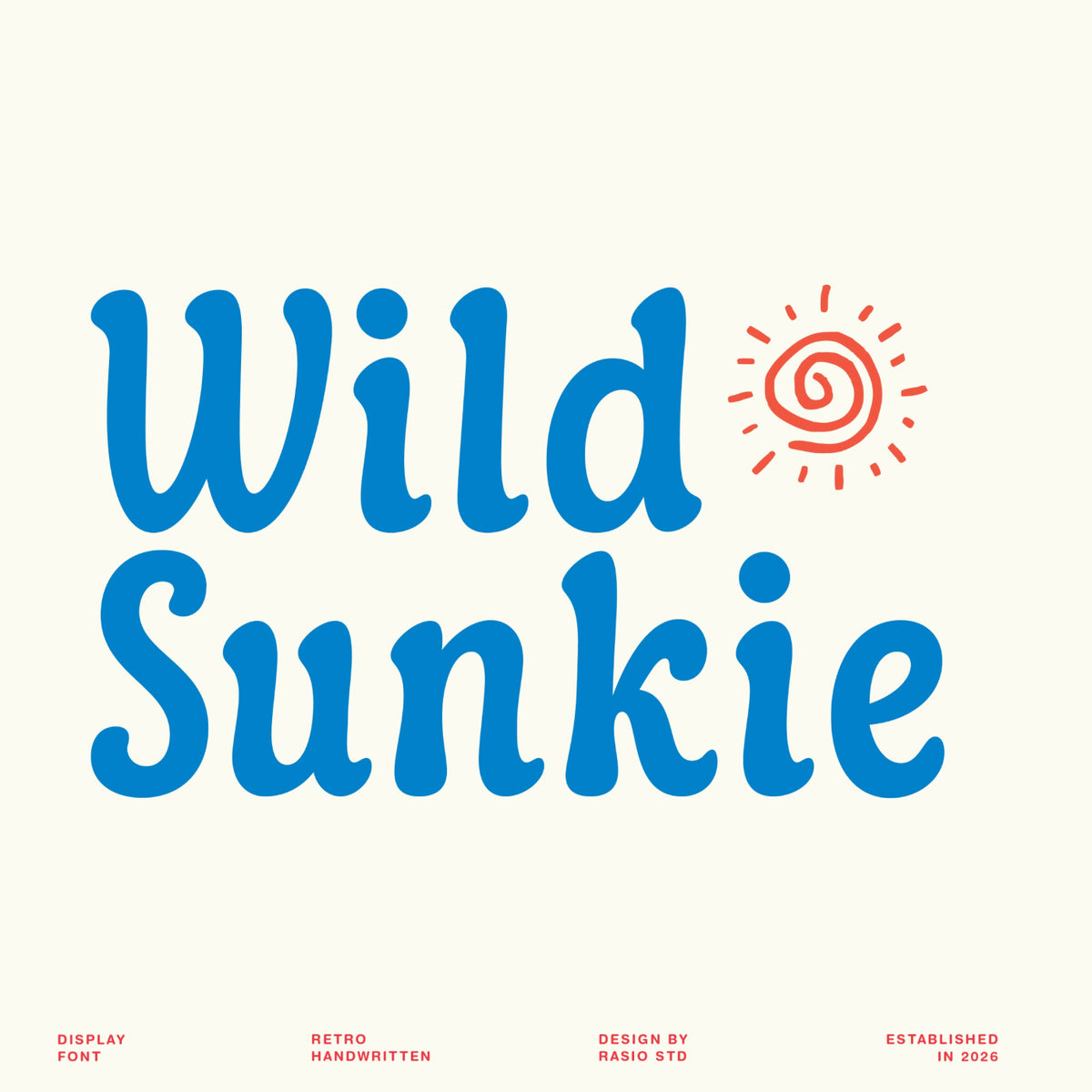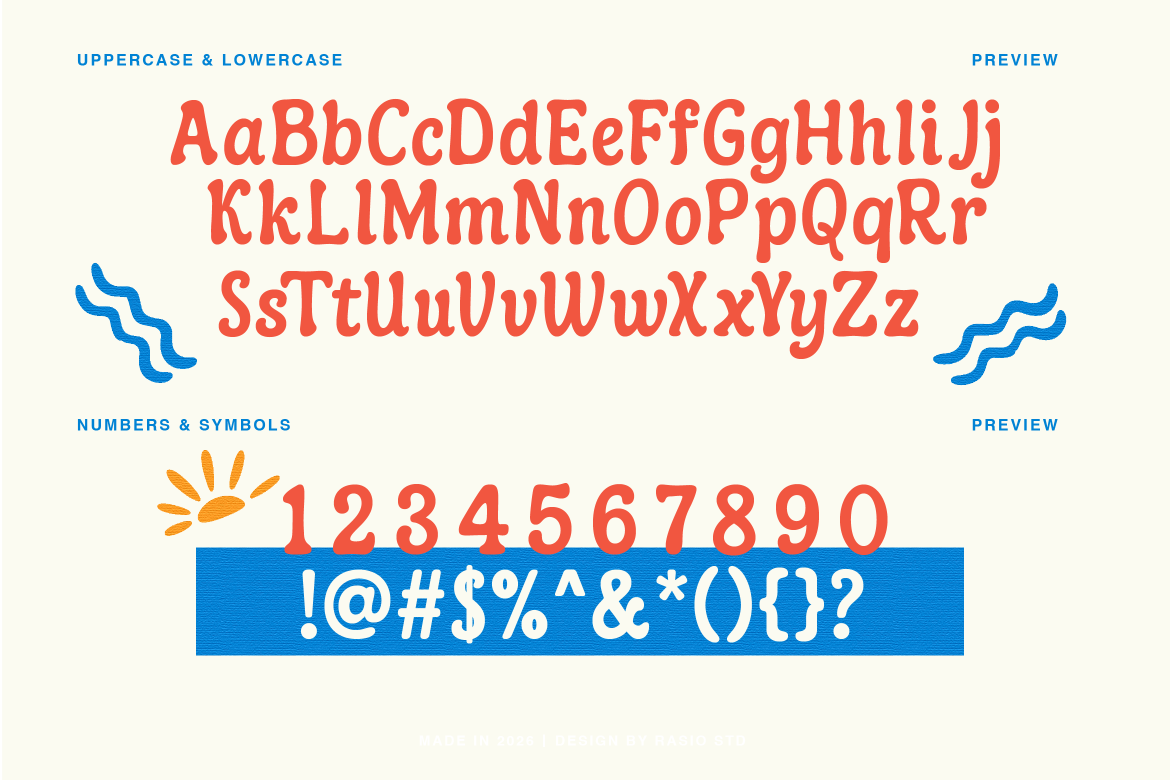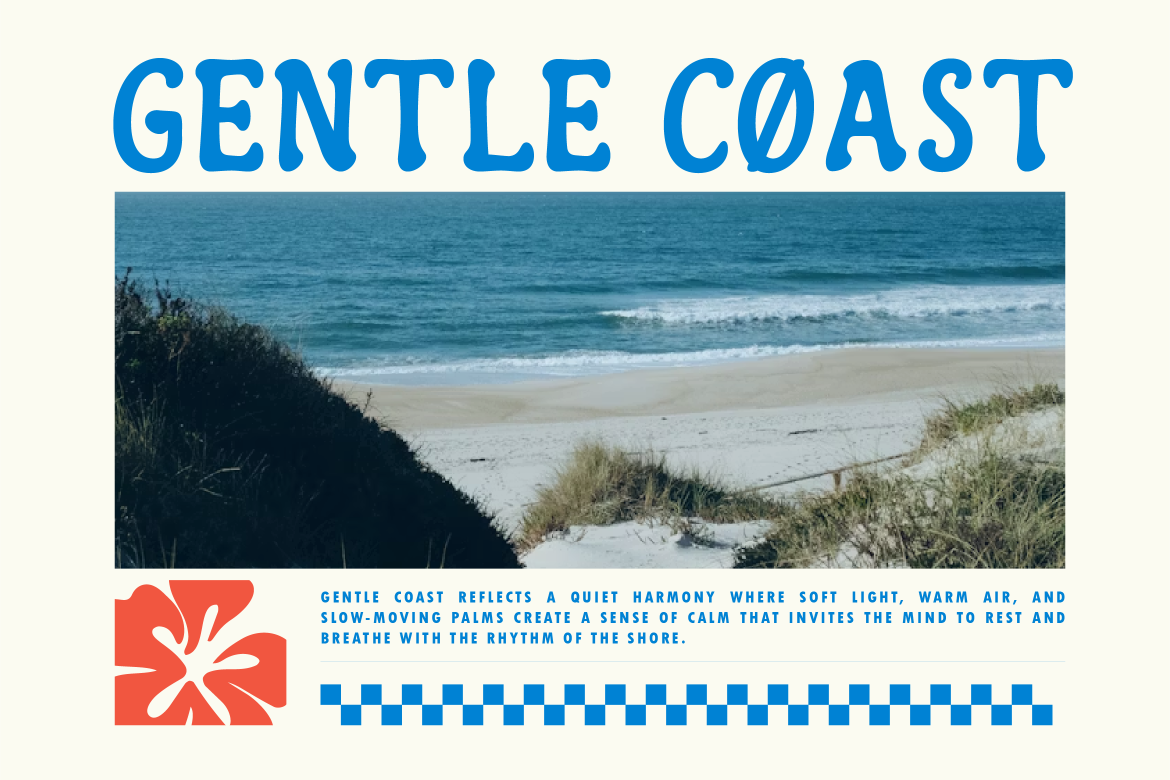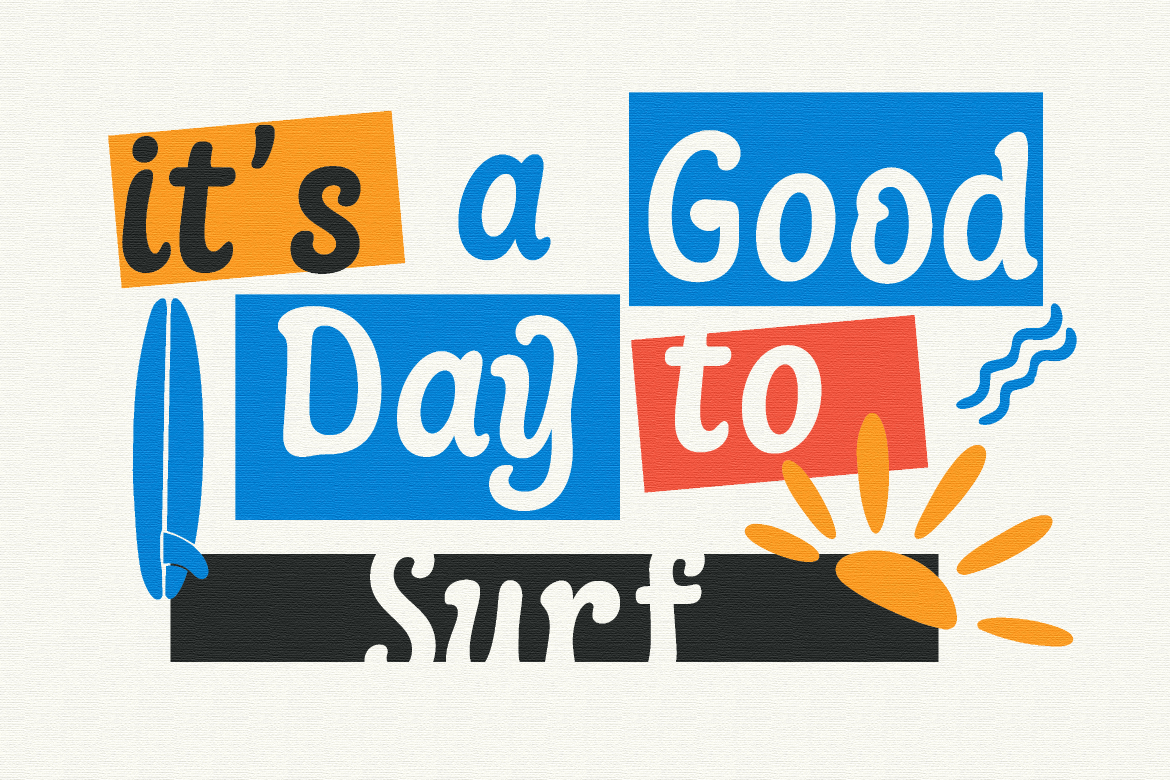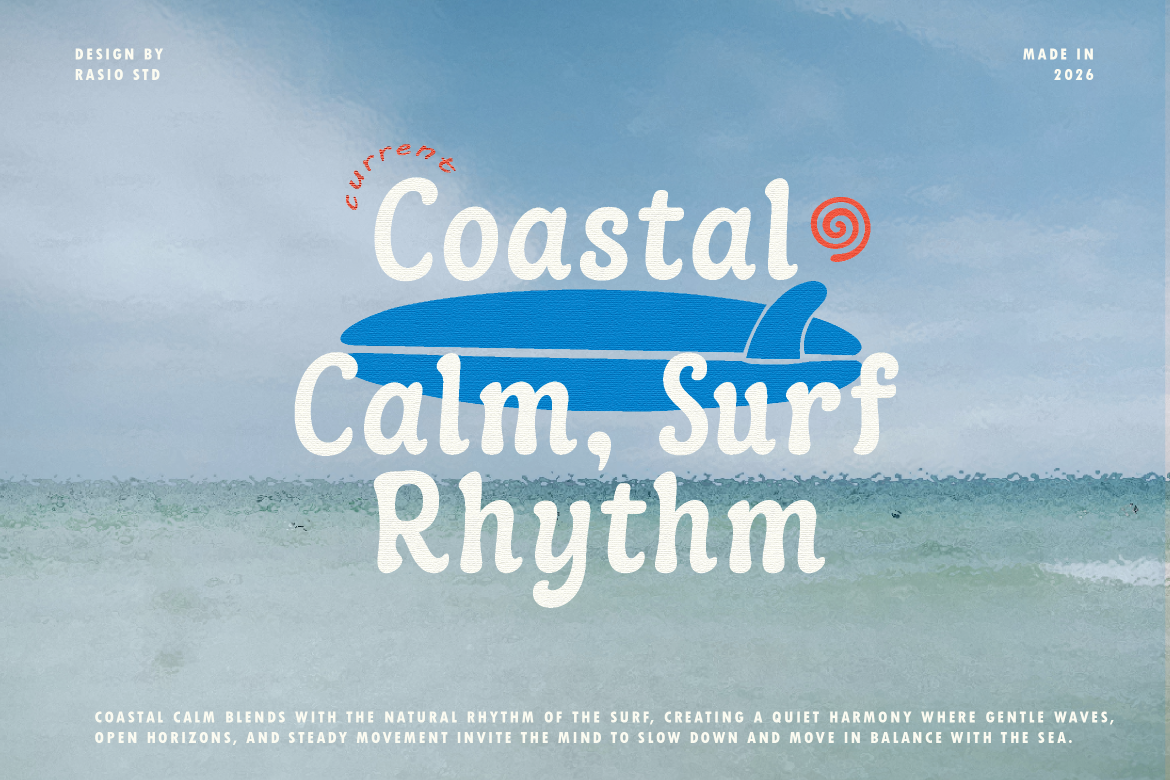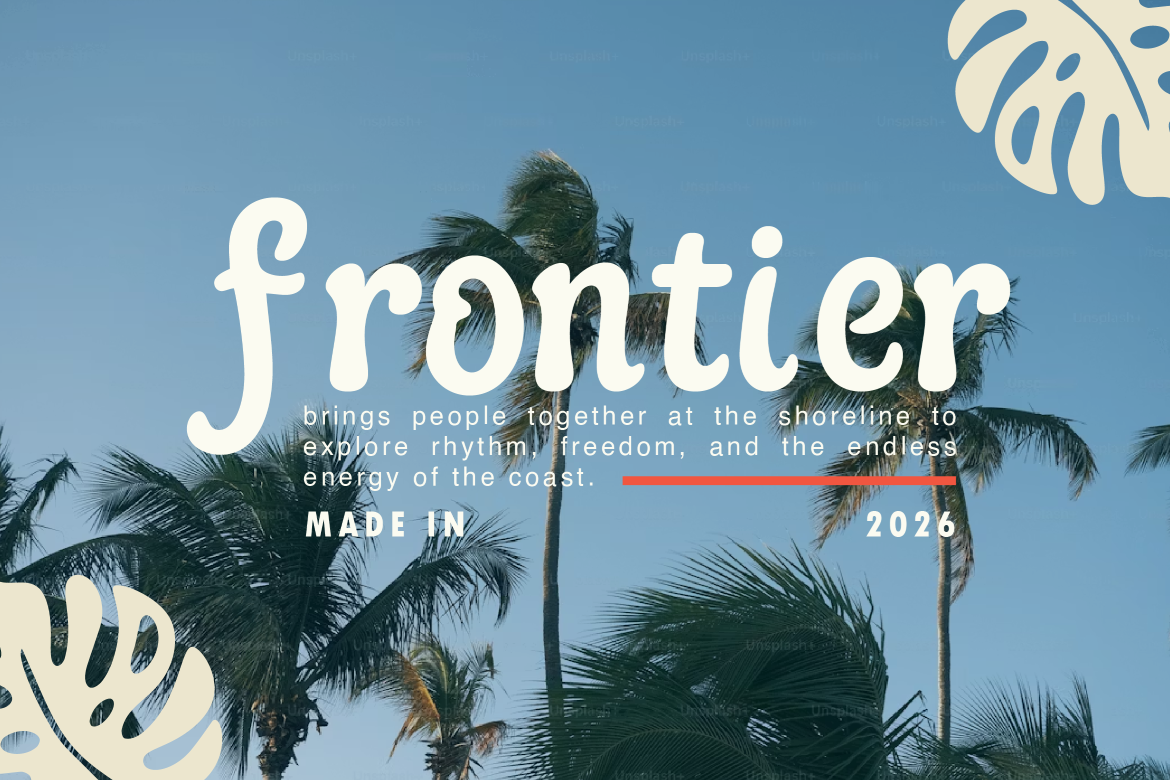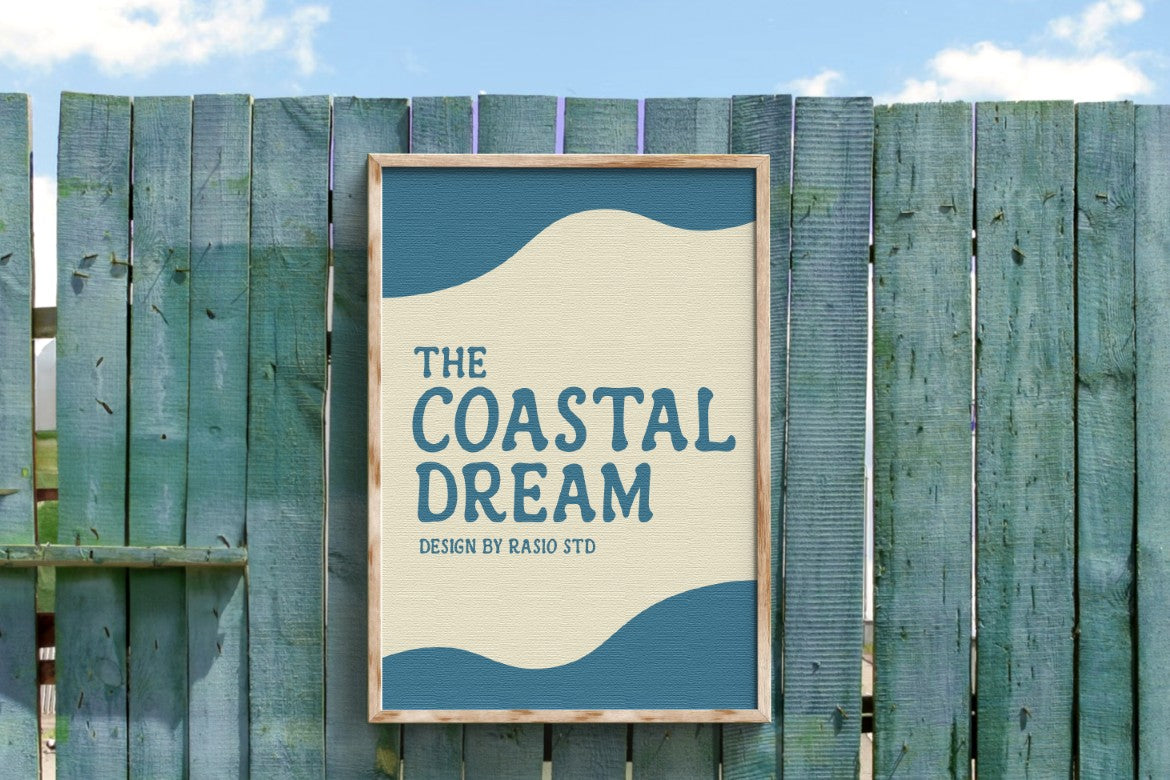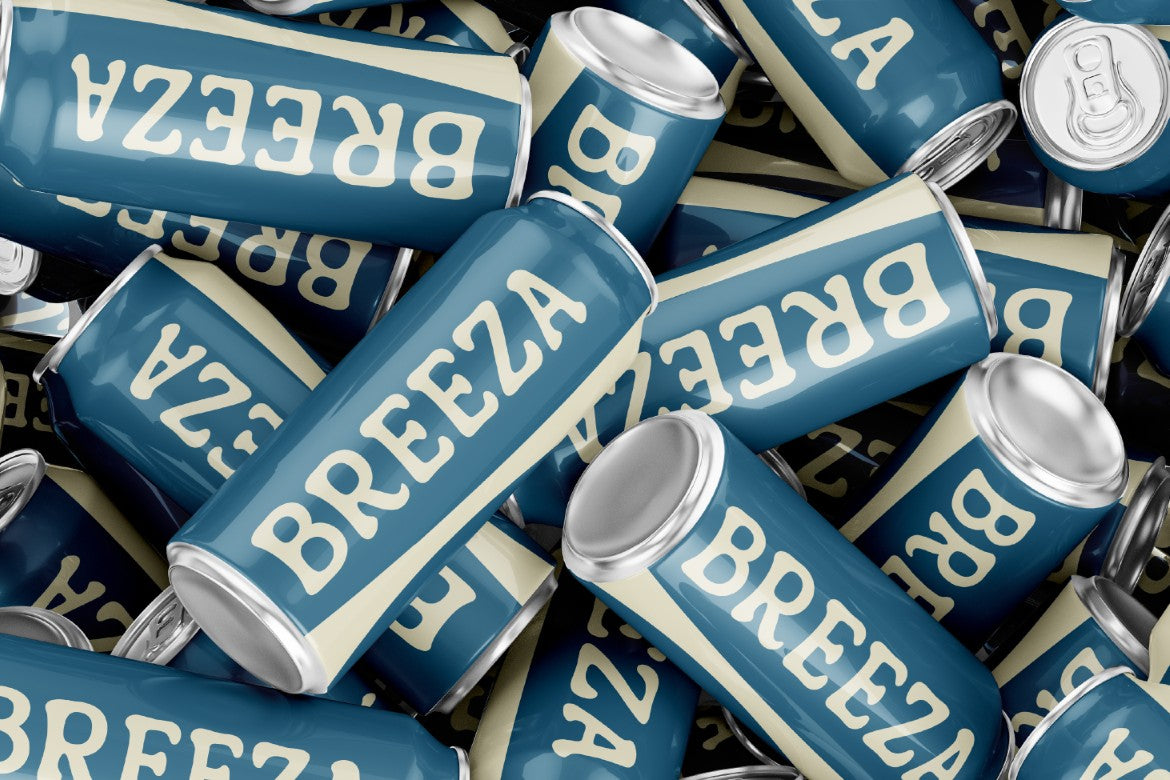
Wild Sunkie Retro Handwritten Font
Wild Sunkie is a cheerful retro-style handwritten display font designed to bring energy and personality to your creative projects. Featuring bold, curvy strokes with playful character shapes, this typeface is perfect for adding a nostalgic yet fresh flair. The font includes uppercase, lowercase, numerals, punctuation, and multilingual support, making it a versatile choice for various design needs.
Relevance and Use Cases is perfect for Wild Sunkie is ideal for designers looking to add a retro, sunny vibe to their creative work. Its fun and fluid form makes it great for branding projects, kid-focused content, packaging, posters, and quirky editorial spreads. Whether you're creating a beachwear label or a funky food brand, this font adds warmth and energy to any layout.
Wild Sunkie is a retro-style handwritten display font featuring bold, curvy strokes with playful character shapes. It includes uppercase and lowercase letters, numerals, punctuation, and multilingual support, and is available in OTF, TTF, and WOFF formats.